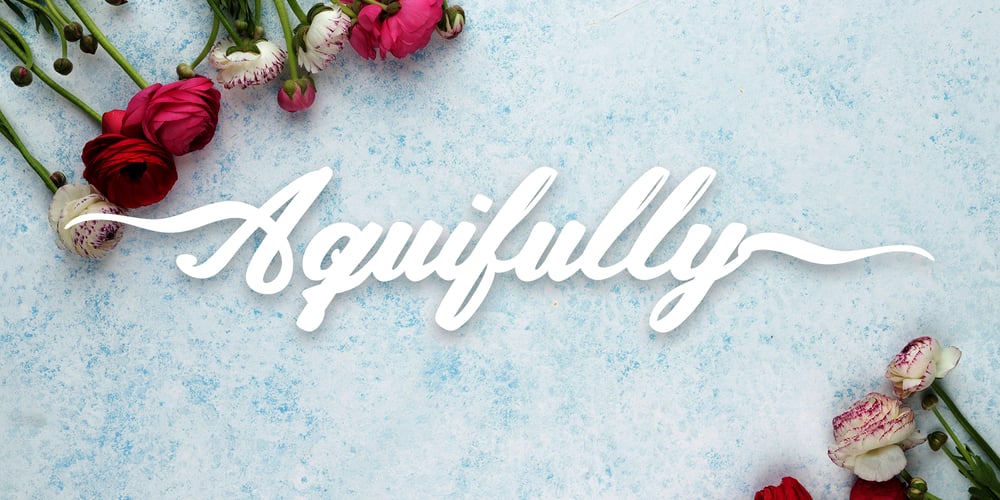
Aquifully Font Family was designed by Zuhayr Zunayra and published by ZorkSlide. Aquifully contains 4 styles and family package options. Aquifully is a unique handwriting font that embodies the fluidity and grace of flowing water. Each character is meticulously crafted to give the impression of elegant, natural handwriting, making it perfect for personal projects, invitations, and artistic designs. Featuring a variety of ligatures, Aquifully ensures seamless and stylish connections between letters for a truly handwritten feel. Additionally, this font supports multiple languages, making it versatile and accessible for a global audience. Let your words flow effortlessly with Aquifully, a font that brings a touch of aquatic charm to your creations.